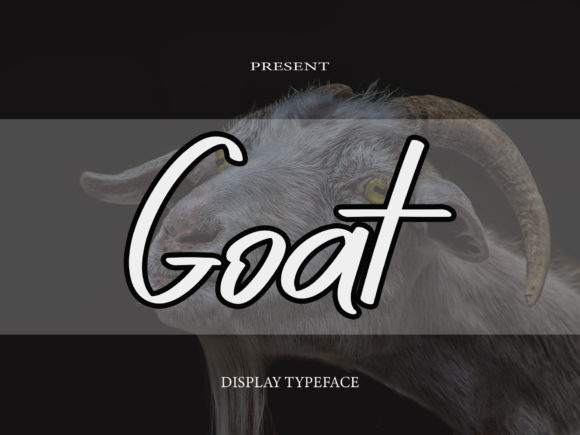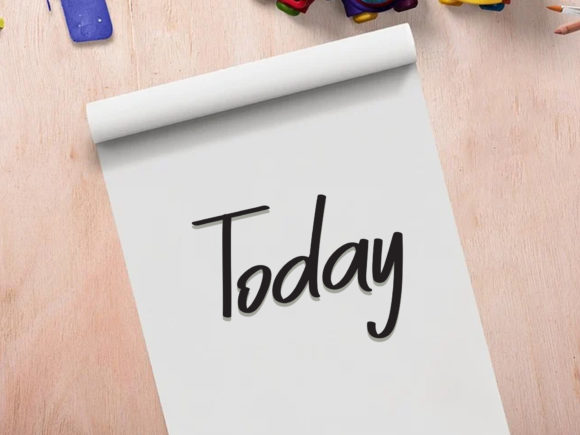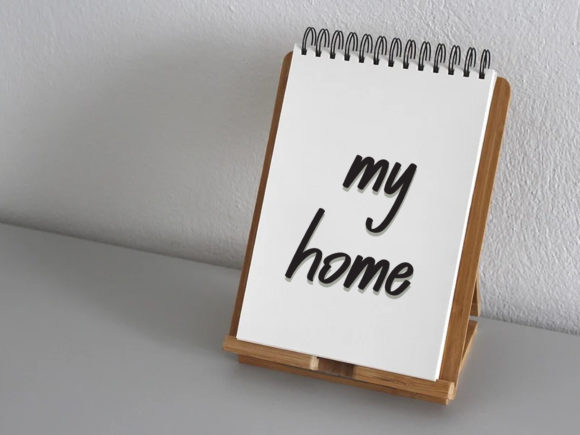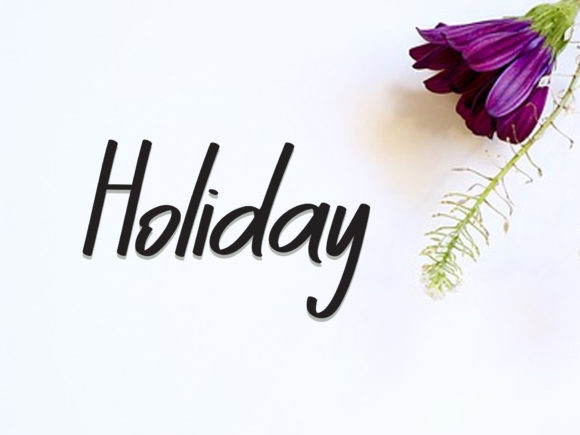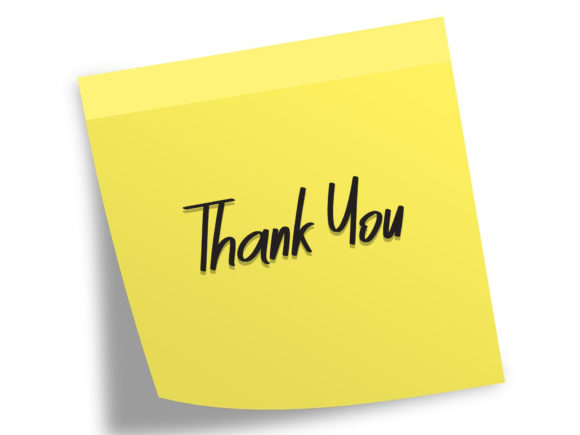
Goat Font
About Goat Font
Goat is a unique handwritten font that was crafted with care to produce the expected results. This font can be used to write titles, invitations, letters, and other types of products.